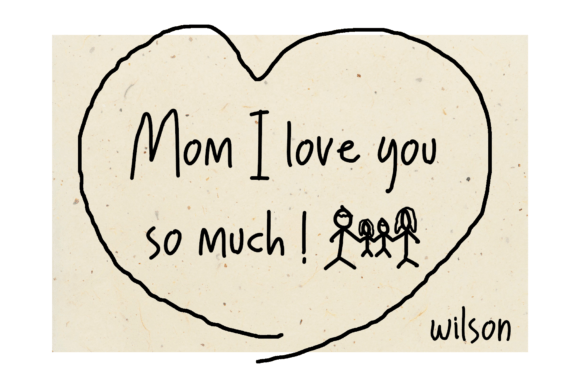
Embrace the warmth and tender charm of Mom I Love You so Much font, a beautifully crafted script font that radiates love, playfulness, and heartfelt emotions. Step into a world of elegant designs, heartfelt messages, and captivating creations with this exceptional font.
Indulge in the font's delightful curves and graceful lines, reminiscent of a loving mother's gentle touch. Watch as words dance across the screen, carrying the weight of your feelings and transforming them into visual masterpieces. Create invitations that radiate joy, logos that exude warmth, and social media posts that spark conversations about love and family.
Mom I Love You so Much font is not just a collection of letters and symbols; it's a vessel for expressing the love you hold deep within. Its simplicity allows your messages to shine, while its handwritten style adds a personal touch, making every creation feel like a heartfelt embrace.
Whether you're a seasoned designer or just starting your creative journey, this font is your perfect companion. Its ease of use and readability make it ideal for a myriad of projects, from heartfelt cards to eye-catching logos. Don't miss this chance to add a touch of love and warmth to your designs.
Unlock the full potential of Mom I Love You so Much font today and embark on a creative journey filled with love, laughter, and heartfelt expressions. Let your designs radiate the warmth of a mother's love, and watch as your creations become cherished keepsakes, cherished messages, and expressions of pure joy.